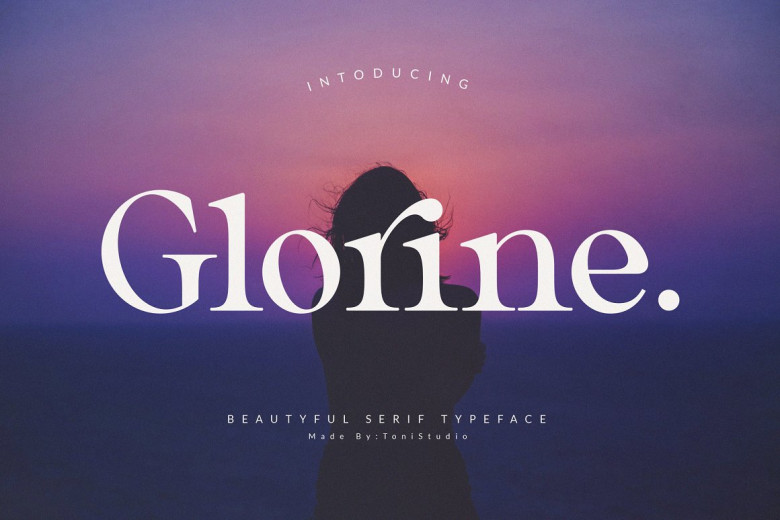
Glorine Font
Glorine is an elegant classic serif typeface, perfect for magazines, logos and social media – ideal for magazines such as People Magazine! Set and ready to be used on any project that demands elegance with classy modern chic flair this font was specifically made to meet those requirements!
Glorine Serif Font